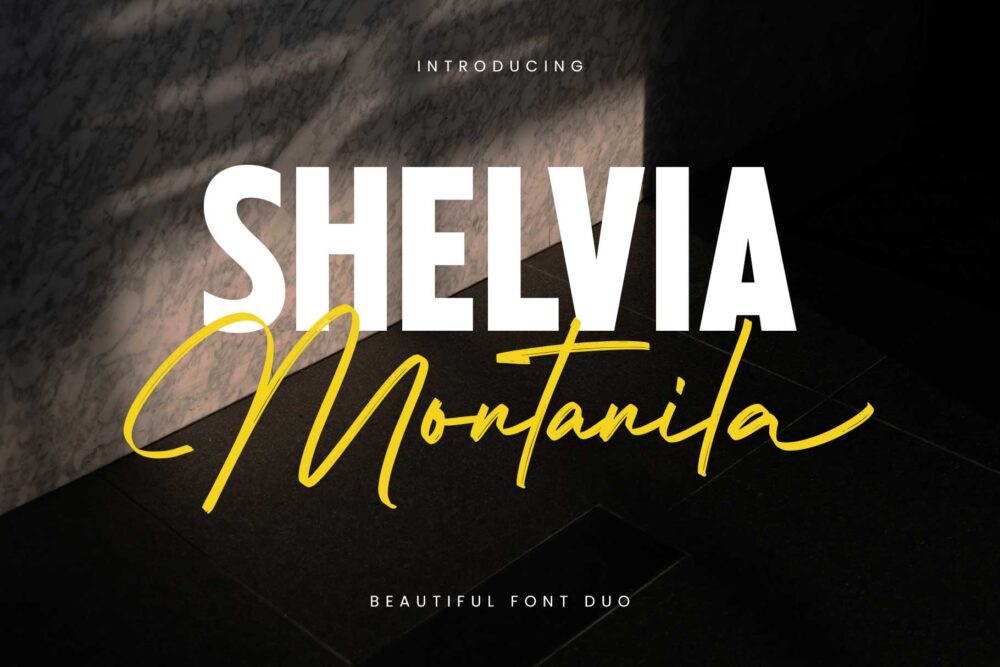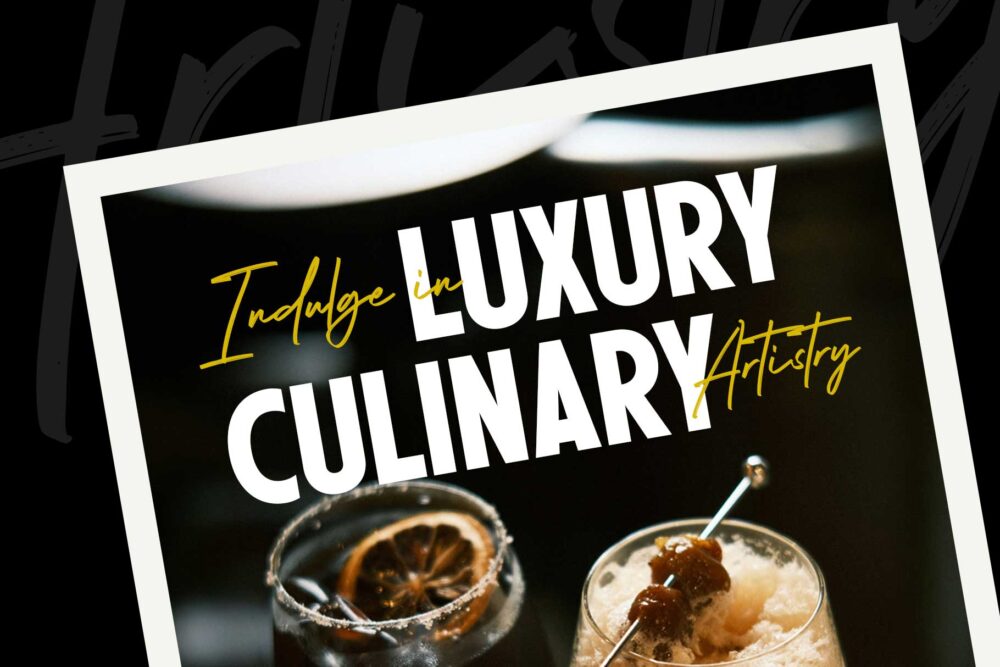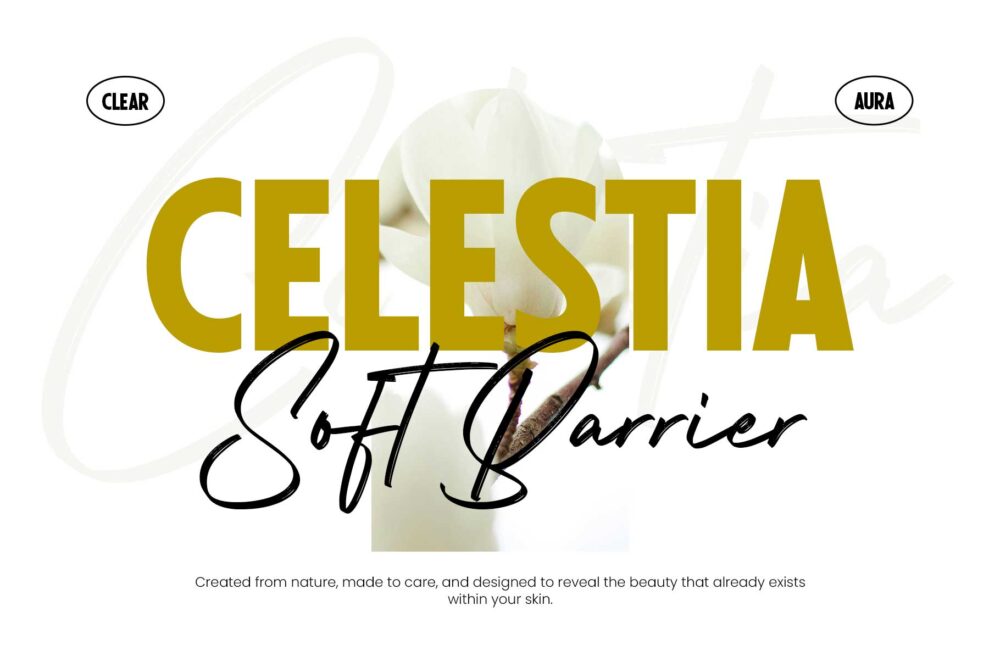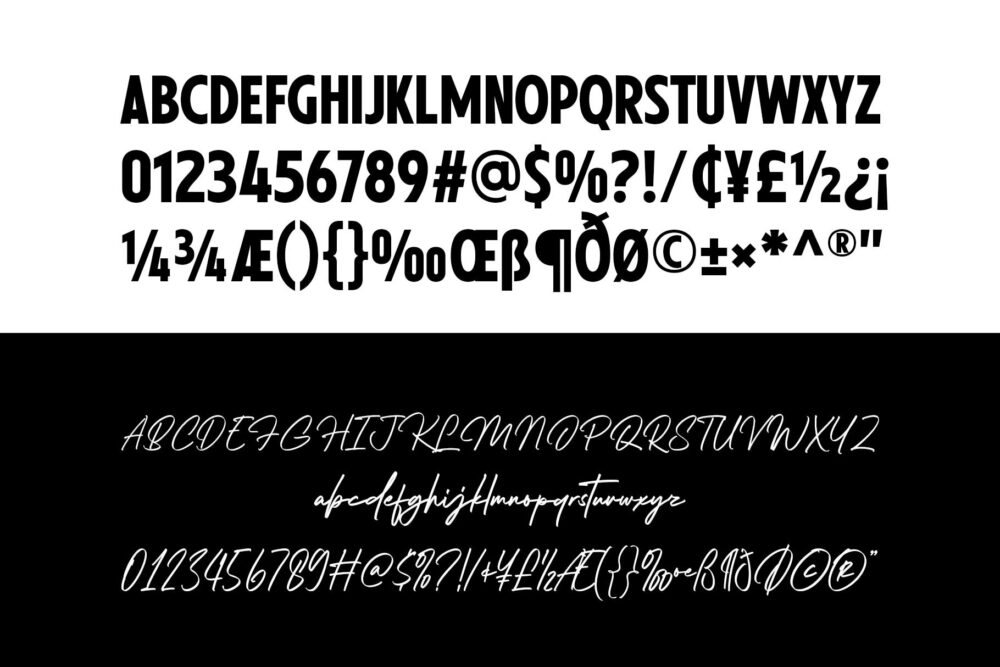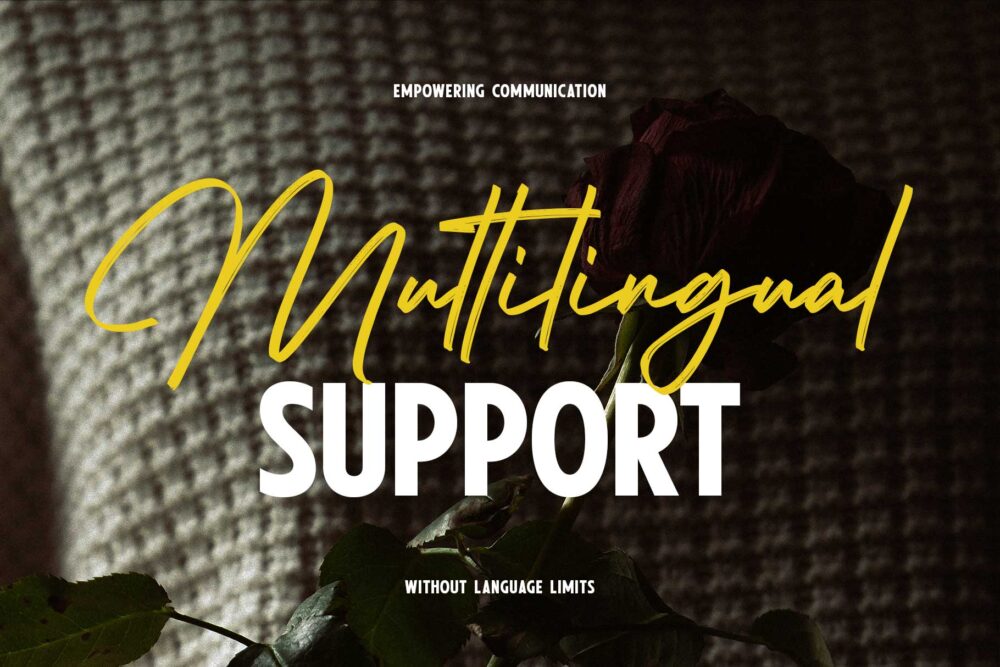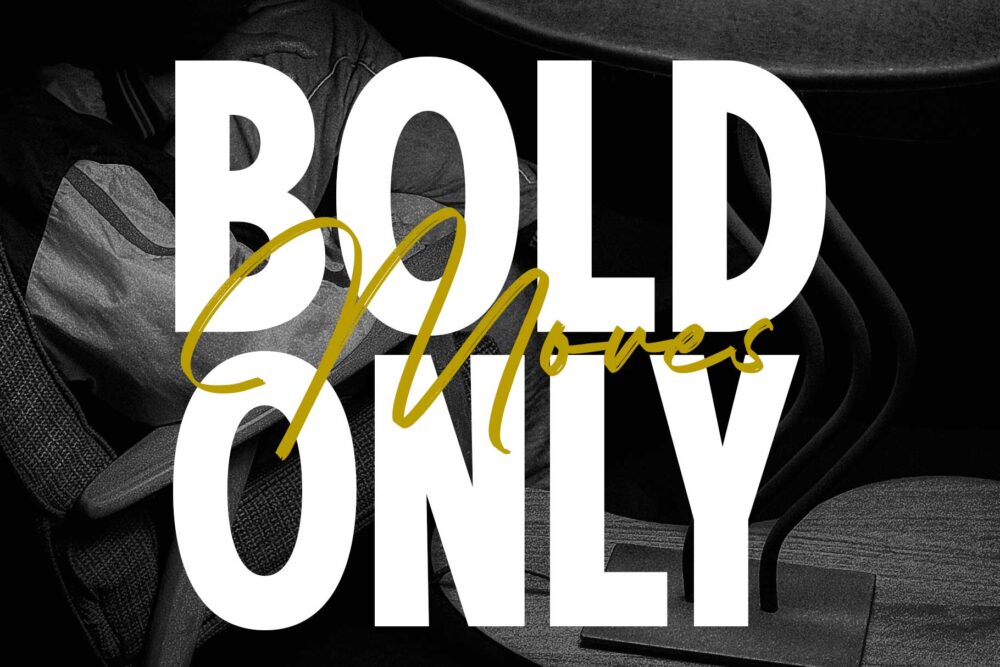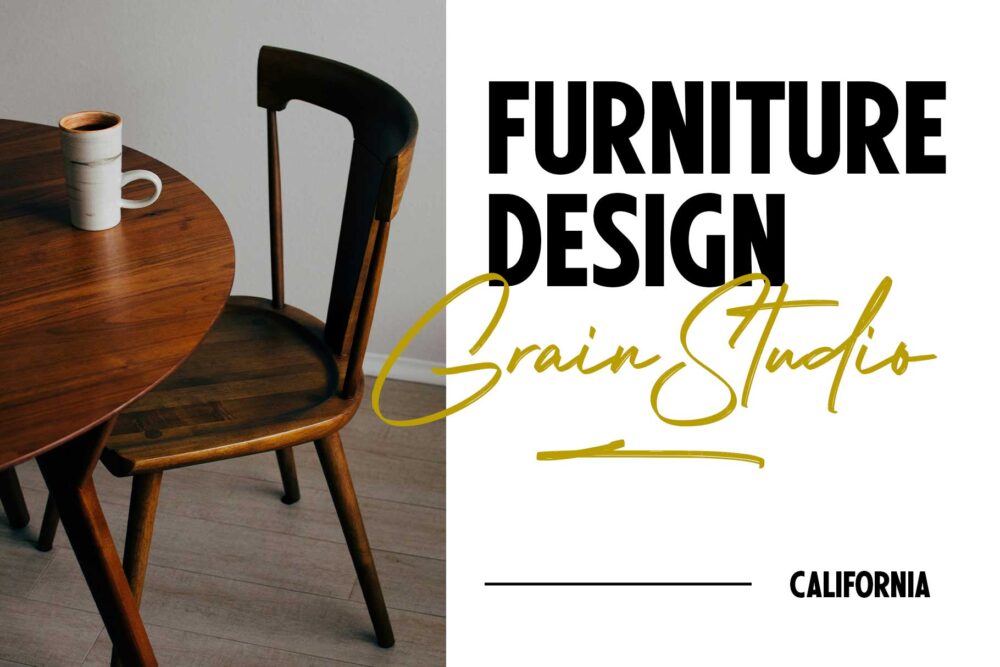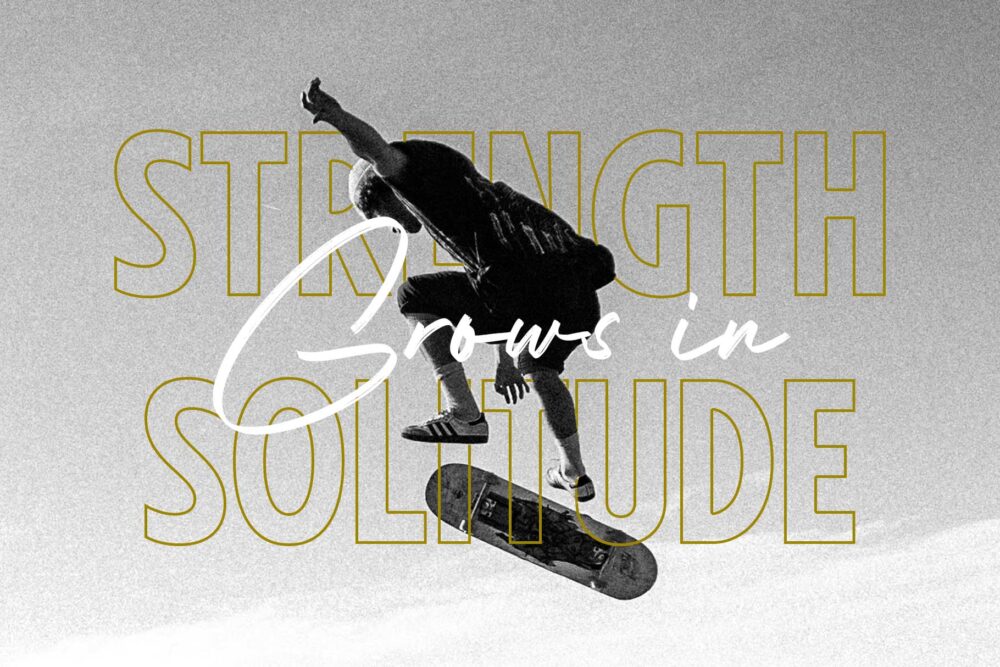
elegant font duo with bold sans and handwritten signature style
Shelvia Montanila Sans
Shelvia Montanila Script
Meet Shelvia Montanila, a beautiful font duo where bold clarity meets expressive elegance. This pairing blends a strong, modern sans serif with a fluid signature script—creating a perfect balance between structure and personality.
The sans serif is clean and confident, ideal for headlines and bold branding. Meanwhile, the signature script flows naturally with a handcrafted feel, adding warmth and sophistication. Together, they create a contrast that feels both modern and timeless.
Shelvia Montanila works beautifully across branding, logos, social media, packaging, and editorial design. The combination of strong sans and expressive script makes your design look polished, balanced, and instantly more engaging—without overthinking the pairing.